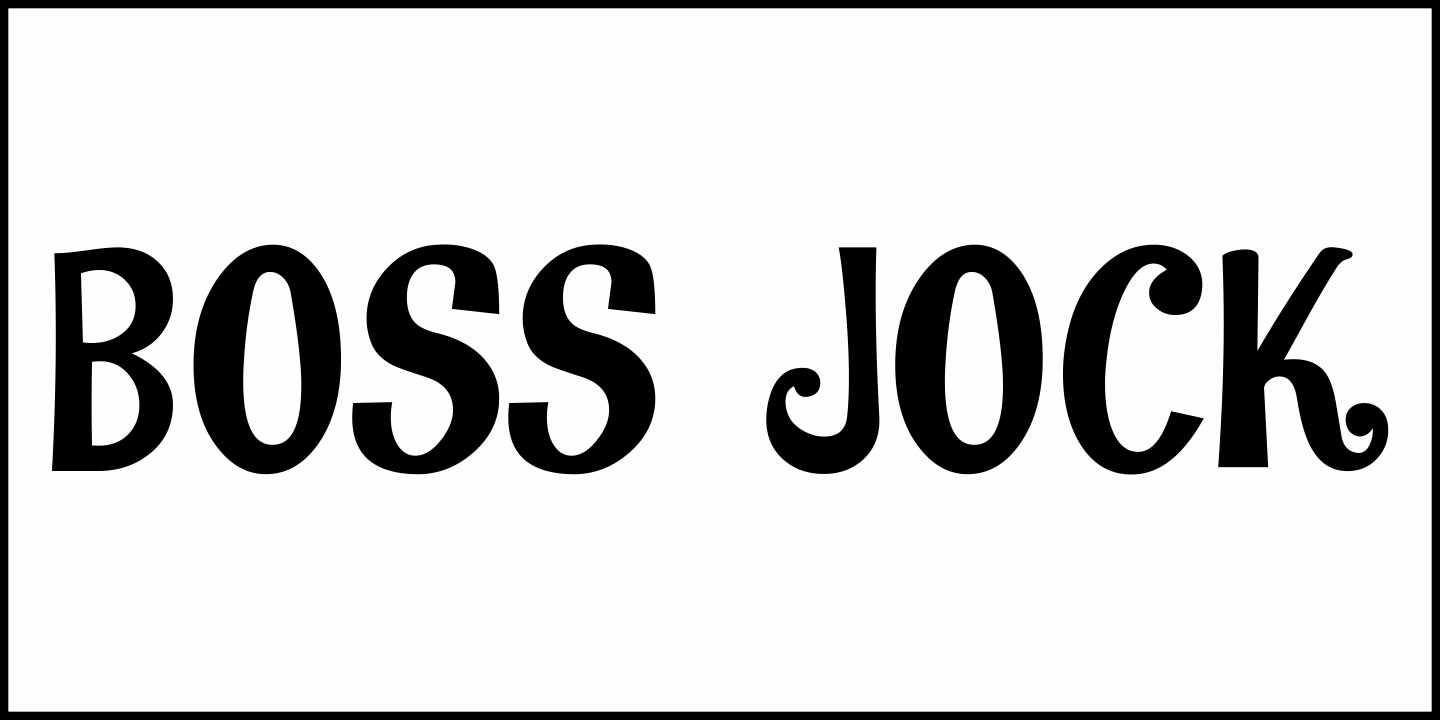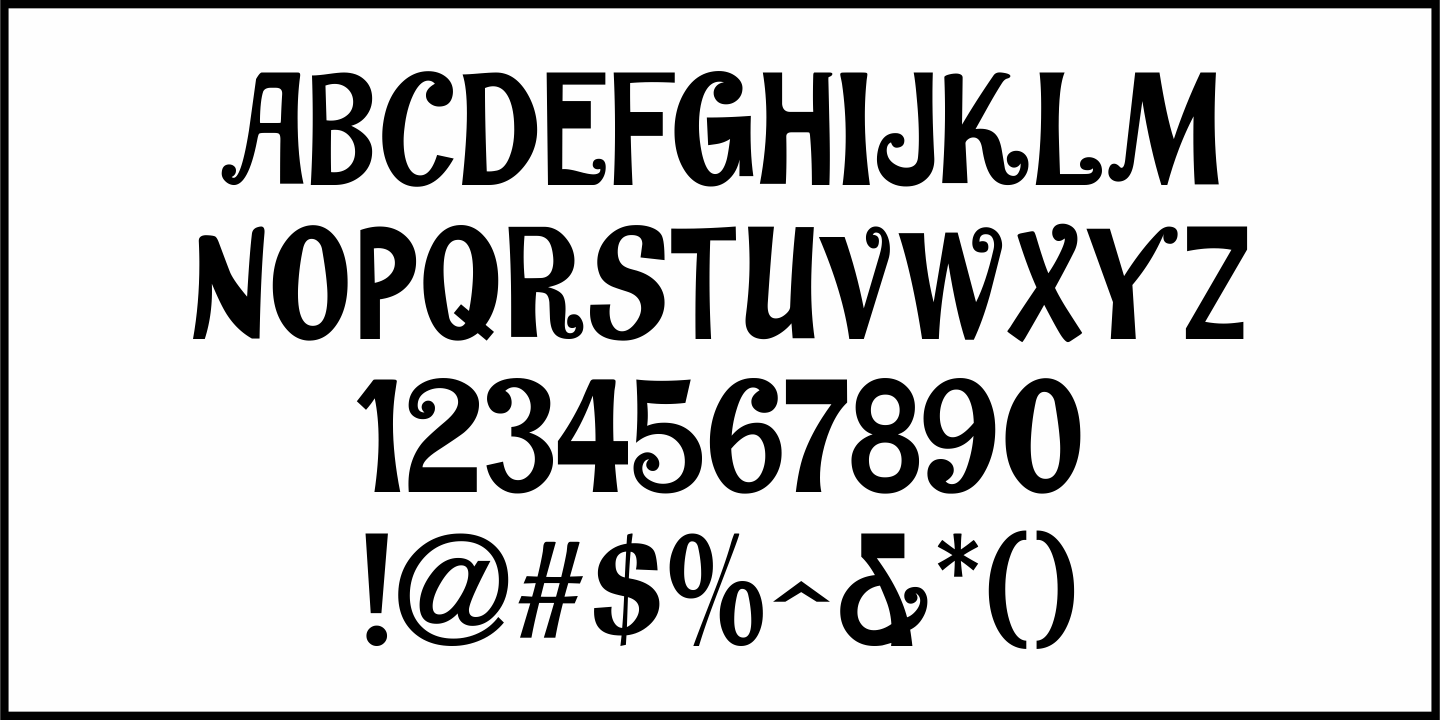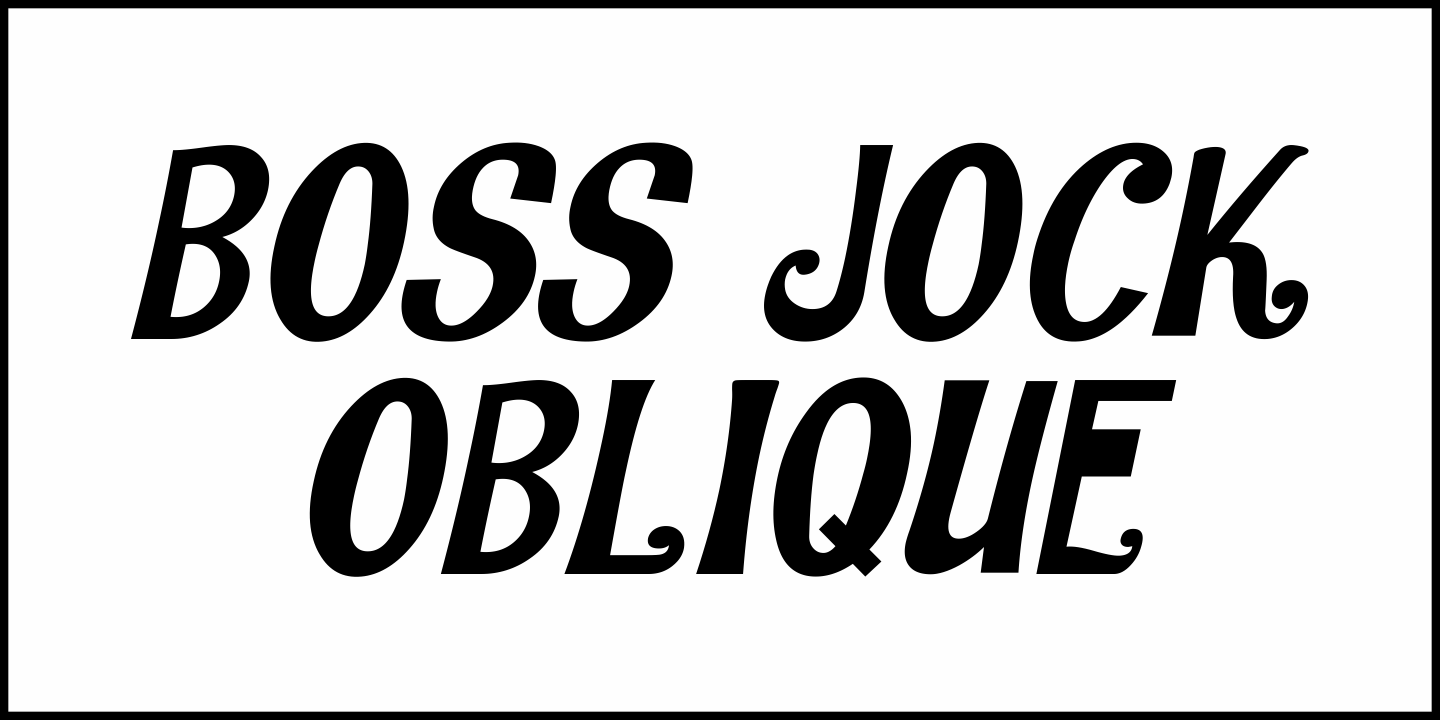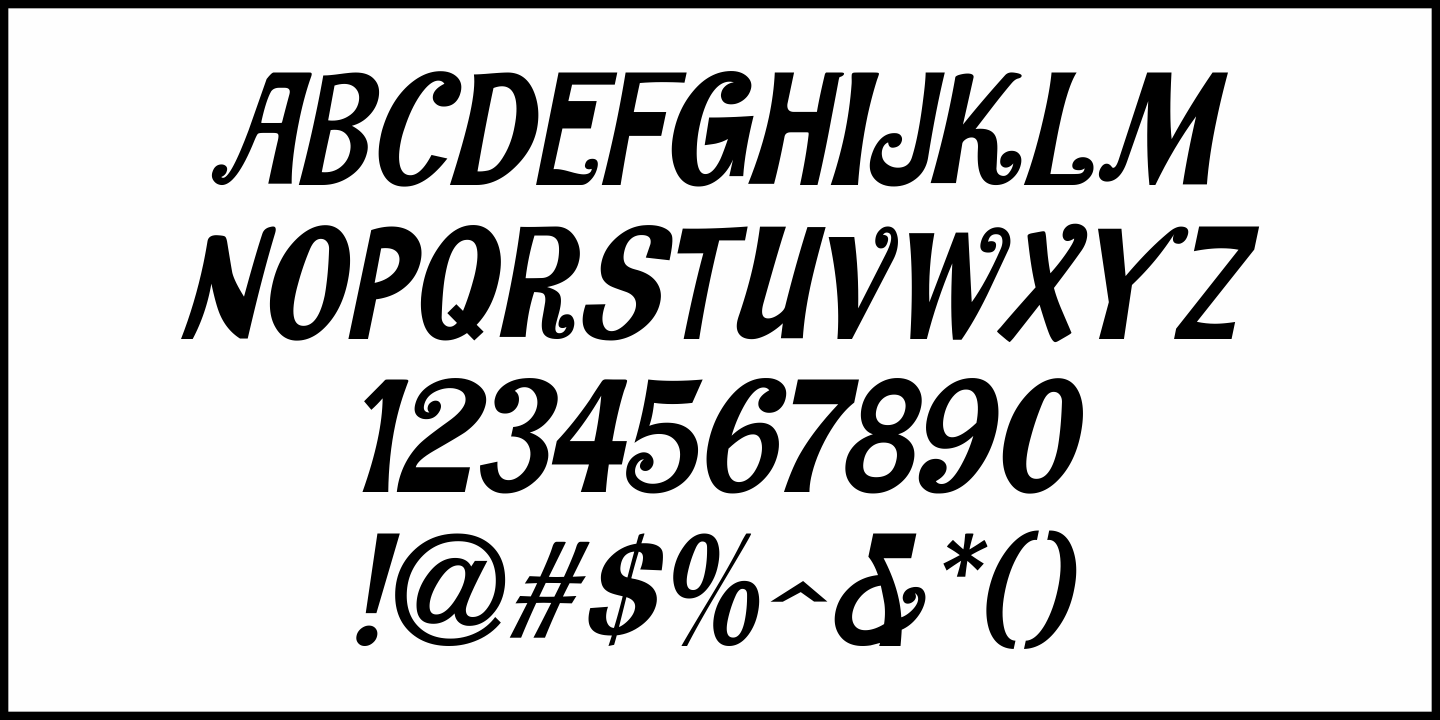
Boss Jock
The title and credits from the 1965 film “Strange Bedfellows” were hand lettered in a style typical of the early-to-mid 1960s – casual and playful. This brought to mind similar type designs used by many radio stations when advertising their disc jockeys as cool, hip and fashionable in the slang term of the day “boss” jocks.
Boss Jock JNL is available in both regular and oblique versions.